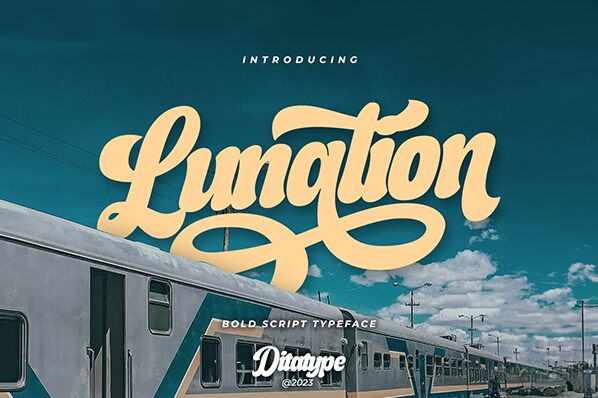
Lunation font is a retro brush bold typeface designed by Ditatype. This incredible creation brings together smooth characters with a cohesive visual flow that transfers approachable vibes and performing exceptionally wherever it’s used. It’s also full of expressive elements which help present even ordinary typed texts in a creative and attractive manner.
A dream-come-true for vintage branding, Lunation can be used to build logos, product packages, advertisements, t-shirt designs, inspirational typography quotes, posters, greeting cards, and custom invitations. Get this free typeface today and enjoy empowering your creative projects with Lunation’s beauty!